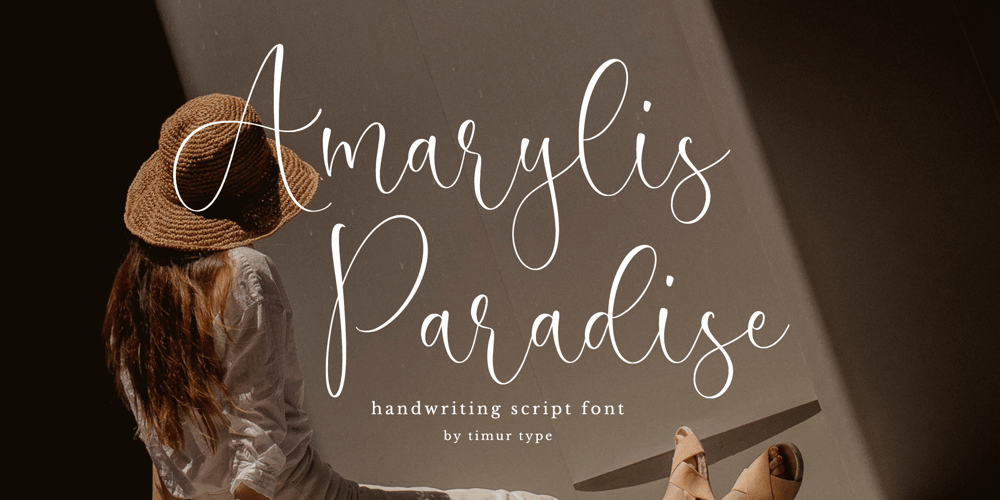
Amarylis Paradise
Amarylis Paradise font
Amarylis Paradise Font Family was designed by Wara Sigit Tri Pamungkas and published by Timurtype. Amarylis Paradise contains 1 styles and family package options. Introducing by Timur typeProudly Present, Amarylis Paradise A Handwritten FontAmarylis Paradise is perfect for product packaging, branding project, megazine, social media, wedding, or just used to express words above the background.Amarylis Paradise also multilingual support.Enjoy the font.Thank you!